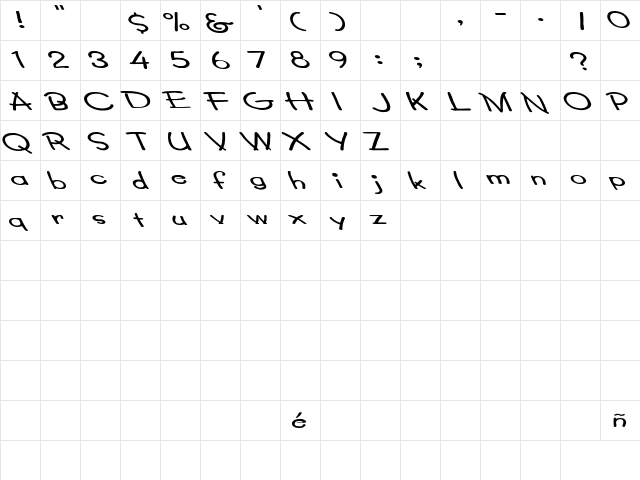
Lumparsky Ex Lefty Regular
Design Context for Lumparsky Ex Lefty Typeface
Lumparsky Ex Lefty takes a measured approach to typography — its balanced proportions and neutral character make it a reliable workhorse for both digital and print work.